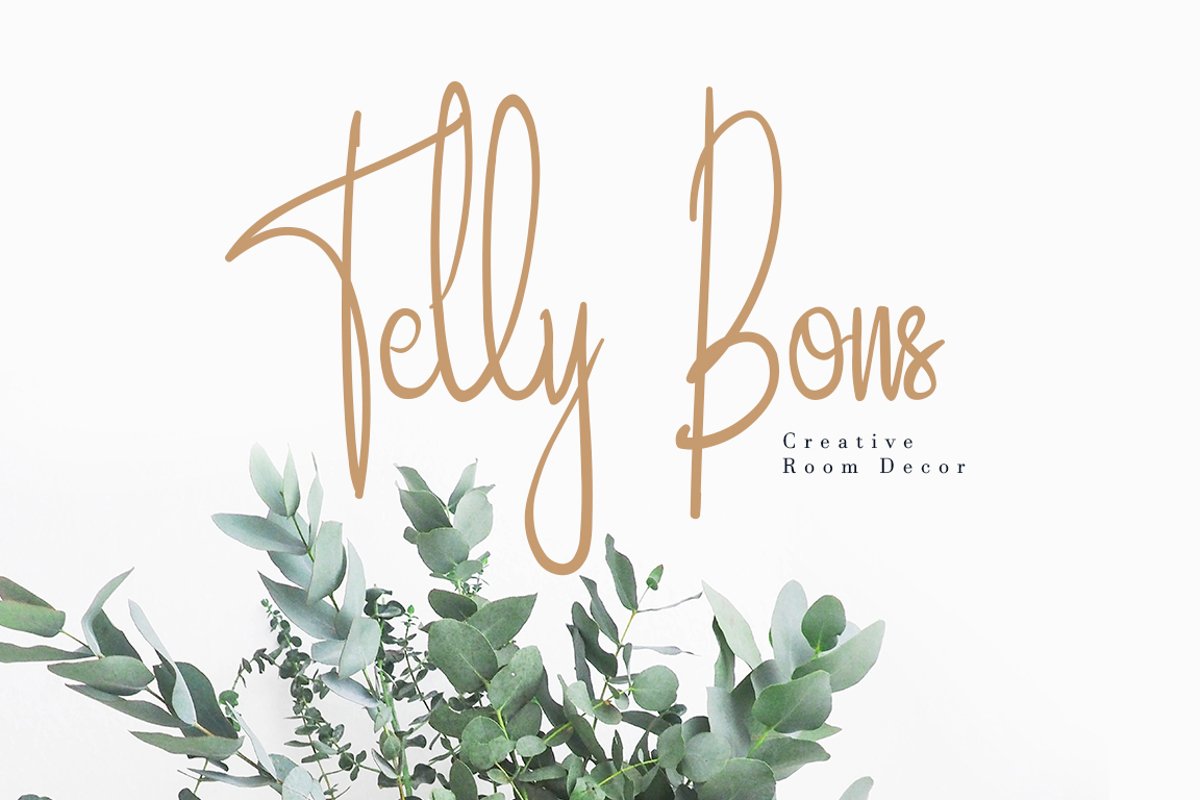
Handle Simple Signature
Handle
The Handle is a stylish signature font with a distinctive, elegant and classy style.
It’s perfect for branding projects, logos, wedding designs, social media posts, advertising, product packaging, product design, labels, photography, watermarks, invitations, stationery and any other project that requires a signature touch.